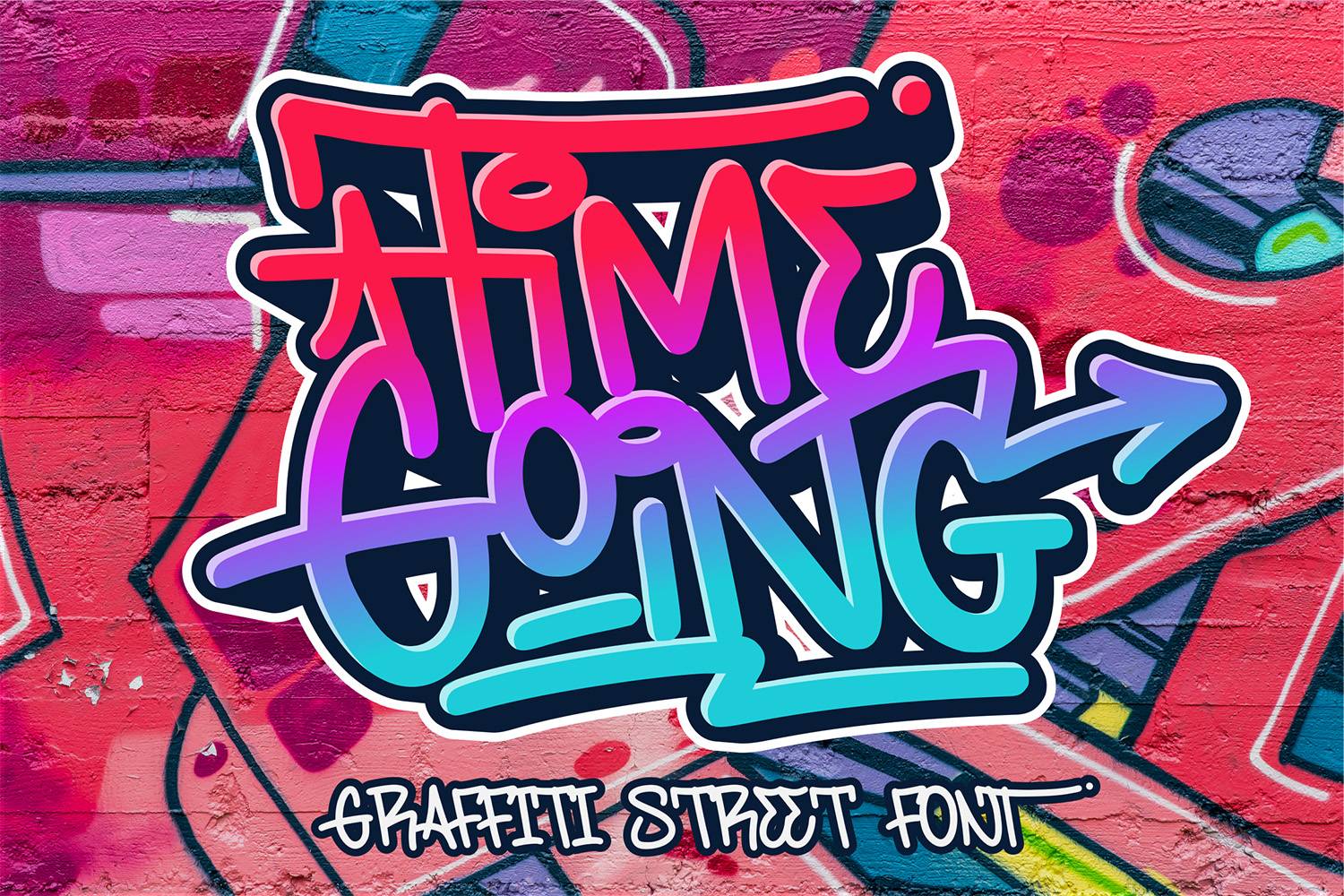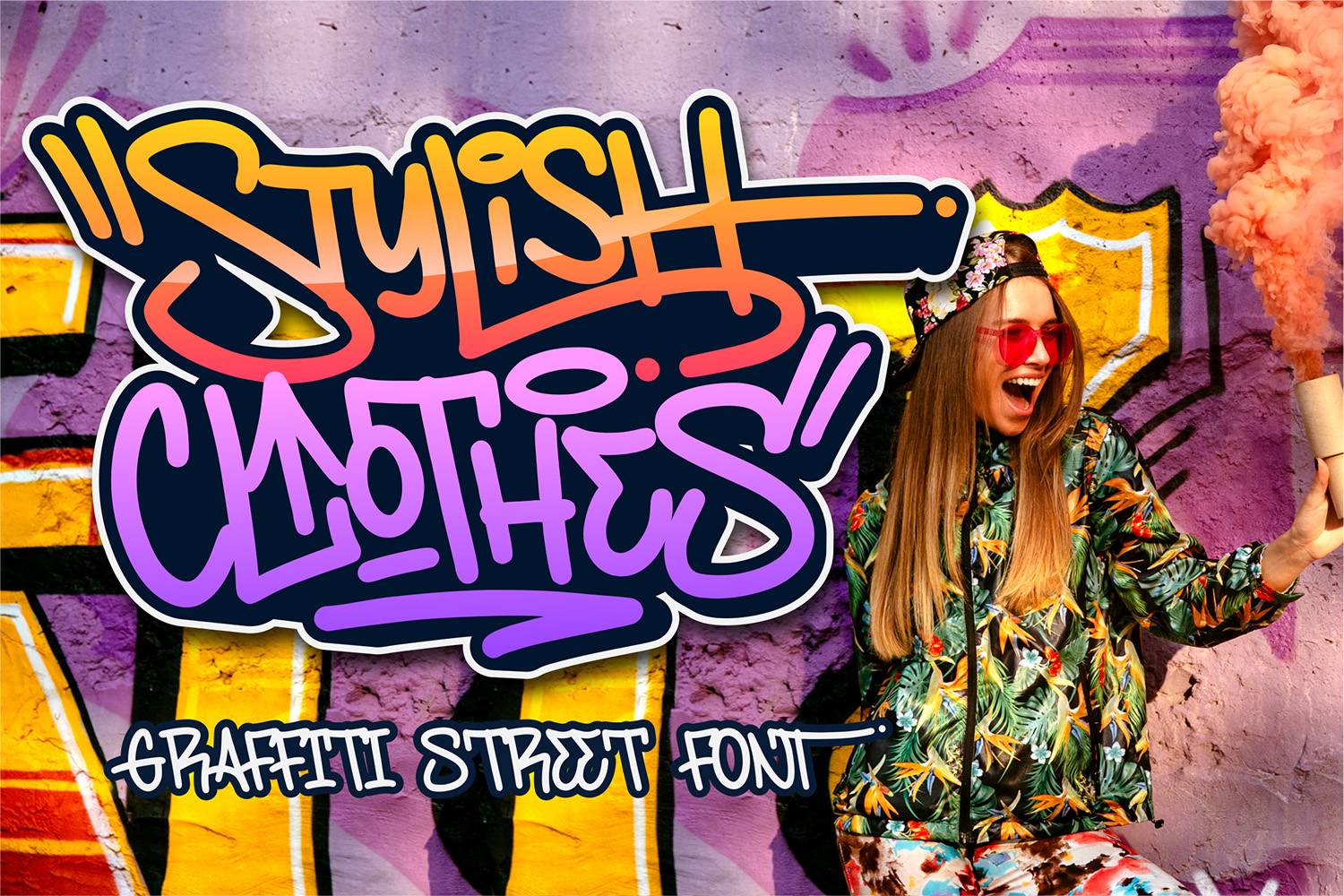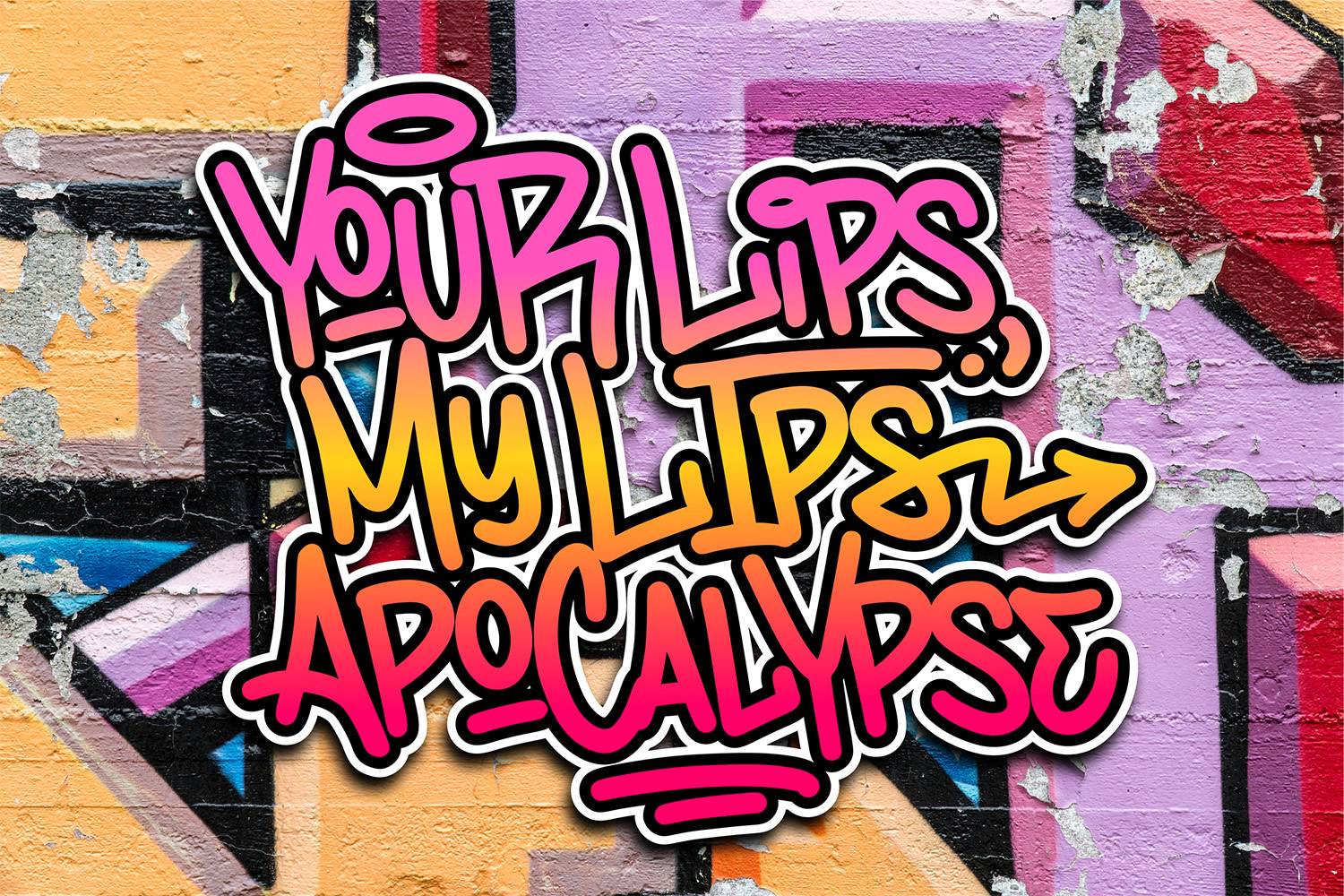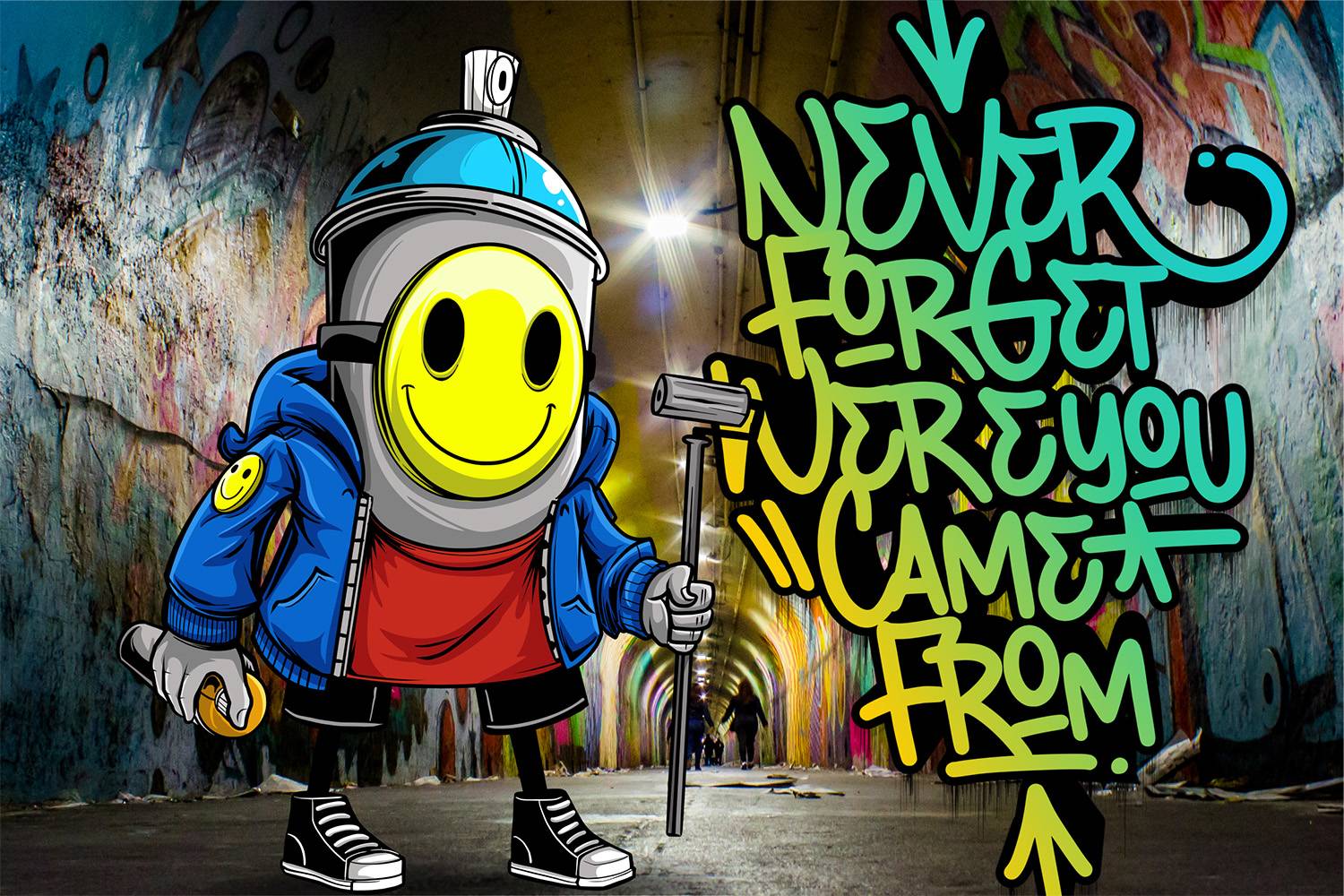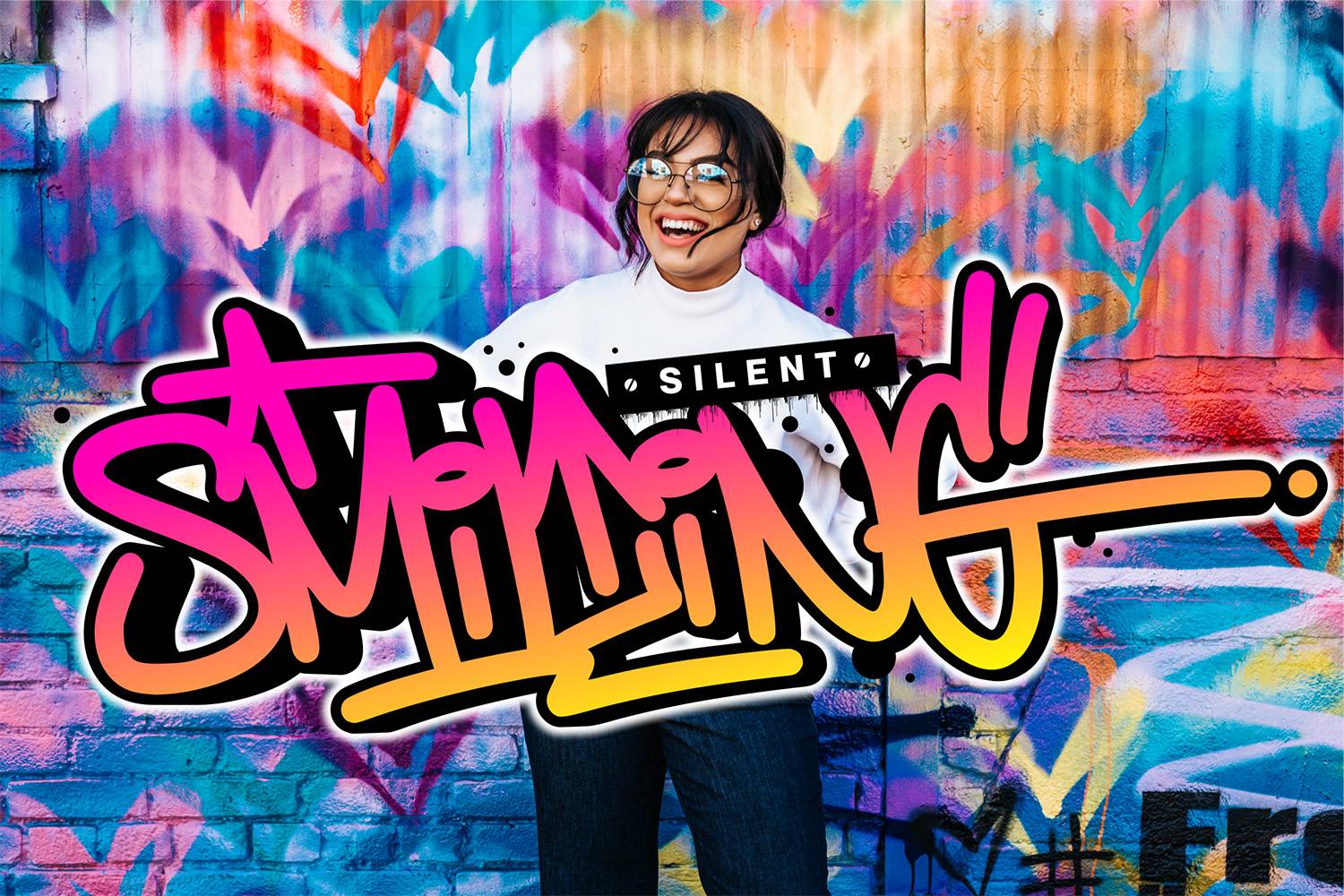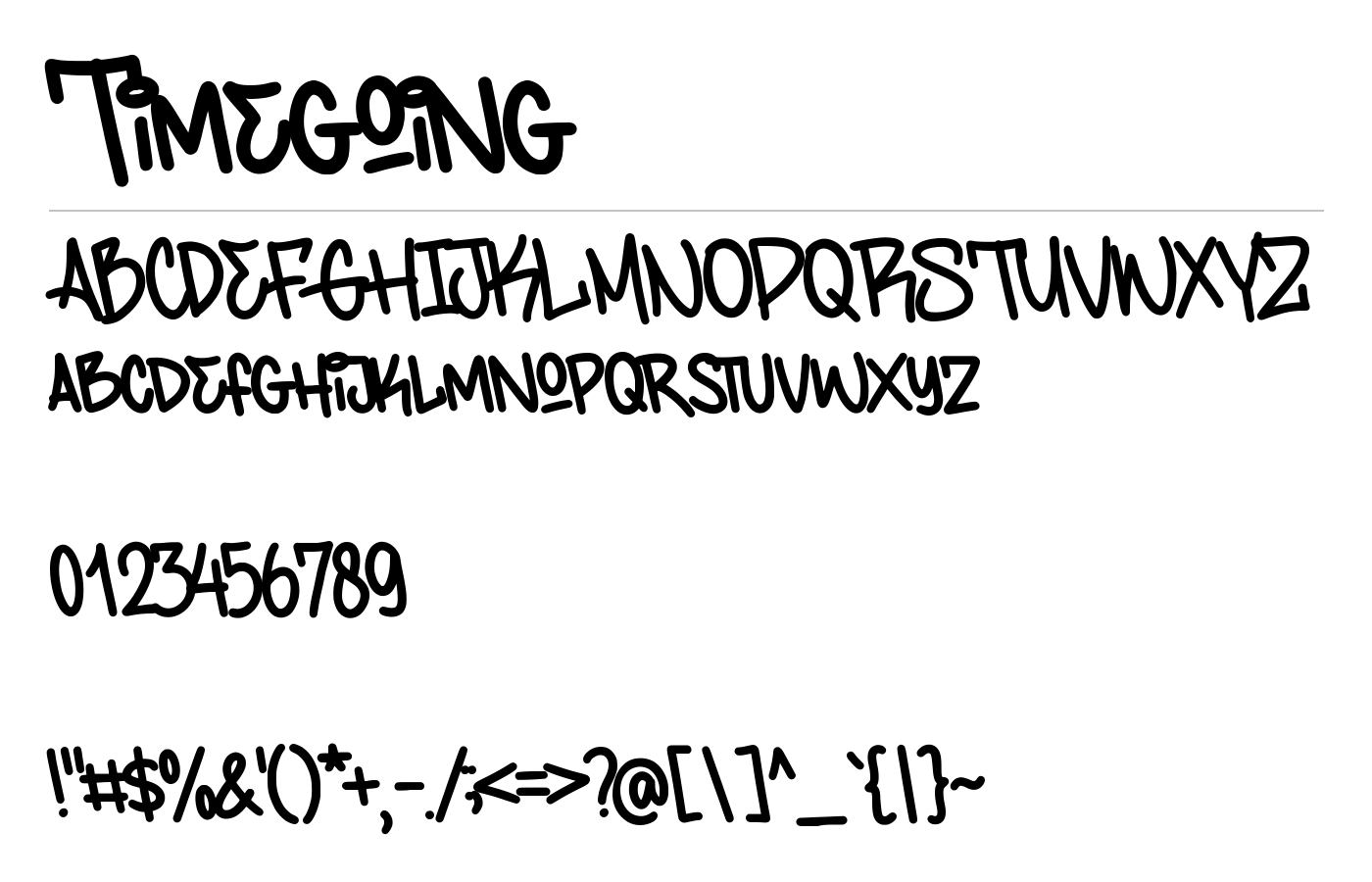
Timegoing is a playful, hand-drawn sans serif font with an energetic and casual vibe, featuring irregular letter shapes and slightly uneven strokes that give it a lively, informal feel. Its medium weight and moderate x-height make it highly readable while maintaining a quirky character, making it ideal for creative projects, youth-oriented branding, or informal headlines. This font works best where a fun, approachable personality is desired, such as posters, comics, event flyers, or any design seeking a friendly, handwritten touch.
Timegoing Font
About Timegoing Font